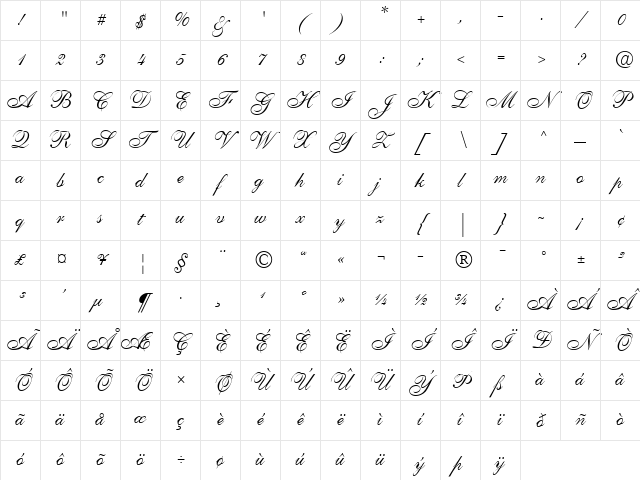
Allegretto Script One Regular
Foundry: FontLab 4.6 by Fee
Designer: Fee
Design Context for Allegretto Script One
Allegretto Script One flows with the natural rhythm of handwritten lettering, making it ideal for designs that call for warmth and personal expression.
Font Pairing: Combine Allegretto Script One with a simple geometric sans for maximum contrast - the tension between flowing curves and clean structure is a classic typographic pairing.
Pro Tip: Use Allegretto Script One for short runs of text - names, titles, or taglines. Extended body copy in script faces tires the eye quickly.